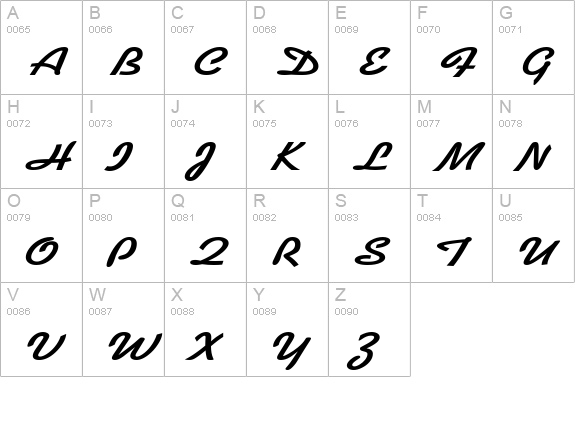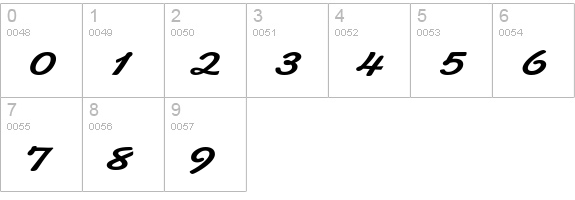
DinerScriptExtended Font Details
DinerScriptExtended is a charming and whimsical font that brings a touch of retro nostalgia to any project. With its playful curves and unique letterforms, this font is perfect for adding a fun and friendly feel to your designs. Whether you're working on a vintage-inspired poster, a quirky logo, or a creative invitation, DinerScriptExtended will make your text stand out in style. Best of all, DinerScriptExtended is completely free to download at FontsMarket.com. That's right, you can enjoy this delightful font at no cost, making it an excellent choice for budget-conscious designers looking to add a touch of character to their work. Don't miss out on the opportunity to enhance your designs with DinerScriptExtended - download it today and let your creativity shine!